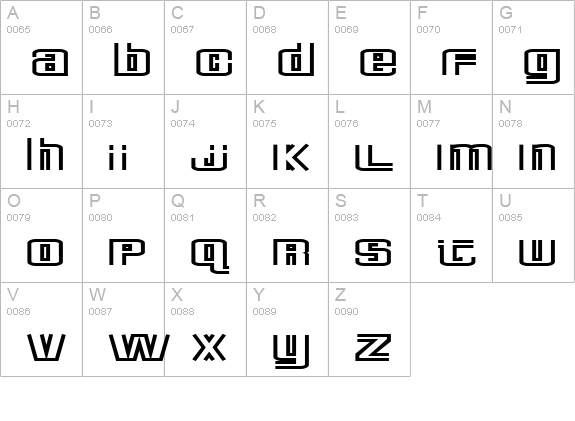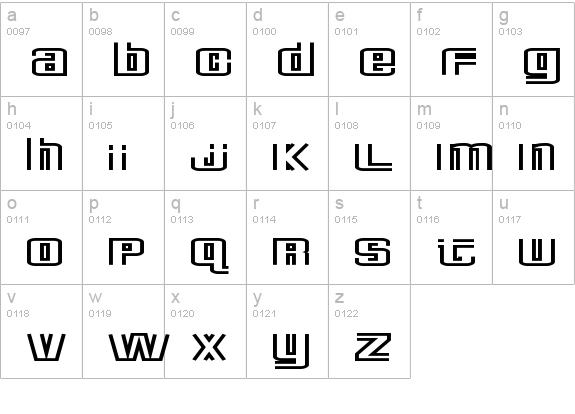
Deluxe Ducks font is a whimsical and charming typeface that brings a touch of playfulness to any design project. With its unique and eye-catching letterforms, Deluxe Ducks is perfect for creating fun and engaging designs, whether for invitations, posters, or branding materials. This font strikes the perfect balance between elegance and quirkiness, making it a versatile choice for a variety of creative projects. And the best part? Deluxe Ducks font is available for free download at FontsMarket.com. So go ahead and add this delightful font to your collection today and let your creativity take flight with Deluxe Ducks!